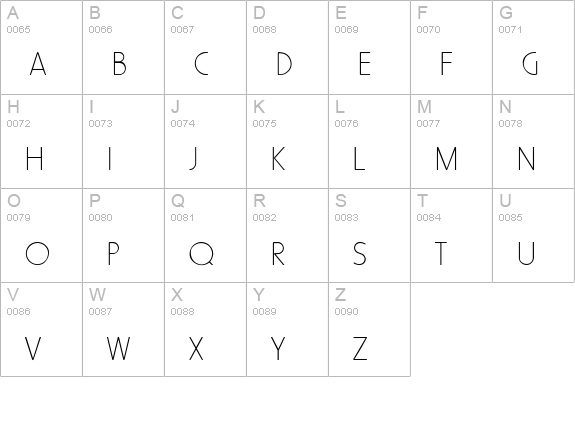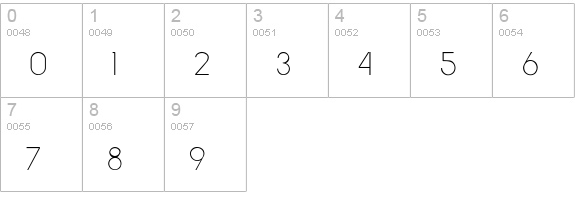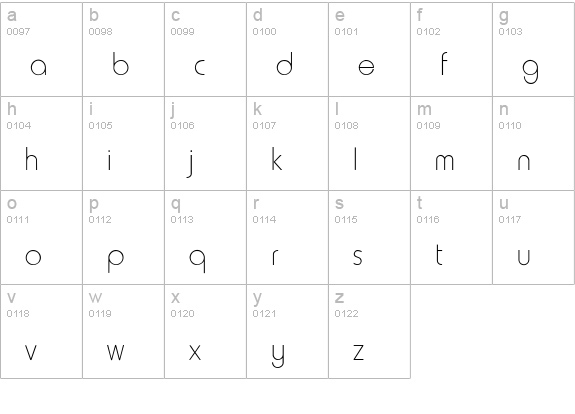
Howard-Thin is a delicate, low-contrast variant in the Howard typeface family \xE2\x80\x94 well suited to fashion editorial, minimal branding, and high-contrast display.
Howard-Thin is a sleek and modern font designed to bring a touch of sophistication to any project. With its elegant thin lines and stylish appearance, this font is perfect for creating a clean and contemporary look. The tall and narrow letterforms exude a sense of elegance and refinement, making it ideal for use in branding, advertising, and editorial design. What makes Howard-Thin even more appealing is that it is completely free to download. You can easily access this versatile font at FontsMarket.com, where you can unleash your creativity and elevate your designs with its sleek and stylish aesthetic. Whether you're working on a logo, website, or print materials, Howard-Thin is sure to make a statement and leave a lasting impression. Download it today and add a touch of modern sophistication to your projects.